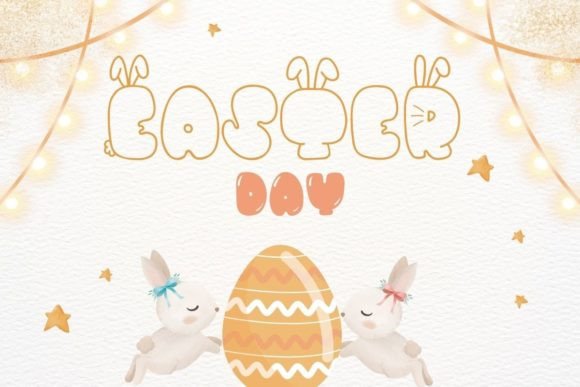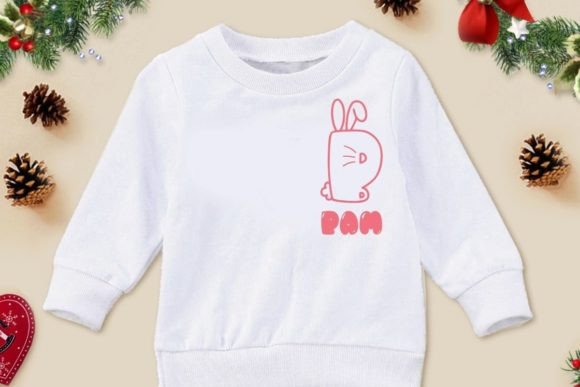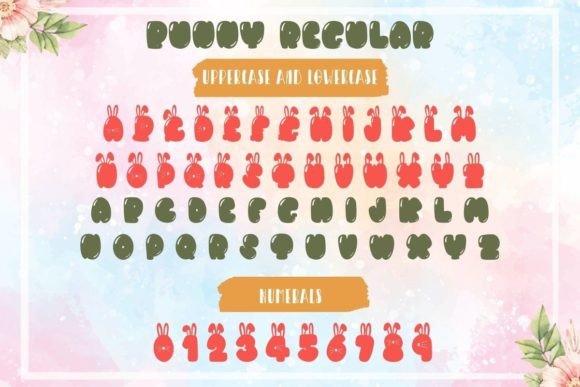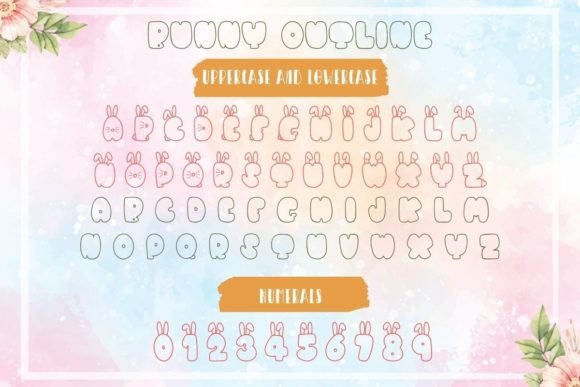
Get Ready to Hop into Creativity with Bunny Font
Have you ever found yourself staring at a blank canvas, searching for the perfect font to bring your design to life? You know that moment when everything clicks, and your creative juices start flowing? That’s exactly what we’re here to talk about – a delightful font that’s sure to put a smile on your face and inspire your next project.
Meet the Bunny Font, a charming decorative font designed to add a touch of whimsy and fun to your designs. Whether you’re creating Easter-themed content or just want to add a playful twist to your projects, this font is perfect for the job. With its adorable style and versatility, the Bunny Font is a valuable asset for designers looking to elevate their work and connect with their audience on a more personal level.
Bunny Font Key Features
- Font Family: Bunny Font is a sans-serif font family designed specifically for digital use.
- Size: The font family includes a range of sizes, from 12 to 72 points, covering various typography needs.
- Resolution: Optimized for high-resolution displays, Bunny Font is suitable for use in both print and digital media.
- Unique Characteristics: Bunny Font features a playful, rounded design with distinctive letterforms, making it perfect for children’s books, educational materials, and advertising campaigns.
- Character Set: The font family includes a comprehensive character set, covering Latin, Cyrillic, and Greek alphabets, as well as a range of punctuation and symbol glyphs.
Bunny Font Review
Overall, I’m a bit torn about the Bunny Font. On one hand, it’s a cute and playful addition to any design project. ✨ The rounded edges and whimsical feel make it perfect for children’s books, nursery decor, and other projects that require a lighthearted touch. ✨ The font’s flexibility in terms of size and color also makes it a great choice for digital applications.
However, there are some limitations that prevent me from giving it a full thumbs up. ⚠️ The font’s readability can be an issue, especially at smaller sizes. The letters can become blurry and difficult to distinguish, which may not be ideal for body text or any project where clear communication is crucial. ⚠️ Additionally, the font’s design may not be suitable for all audiences, as it can come across as childish or immature.
Key Points:
- ✨ Cutesy and playful design makes it perfect for children’s projects
- ✨ Flexible in terms of size and color
- ⚠️ Readability can be an issue at smaller sizes
- ⚠️ Design may not be suitable for all audiences
While the Bunny Font has its charm, I think it’s best used in projects where its playful nature is a deliberate choice. It’s not a font I’d recommend for everyday use or projects where clear communication is paramount.
The Bunny Font is perfect for creating playful and whimsical designs, such as:
- Children’s party invitations
- Cartoon-style illustrations
- Whimsical greeting cards
Here are some tips to get the most out of the Bunny Font:
- Pair it with bold, bright colors to create a playful effect.
- Use it in combination with illustrations or graphics to add a whimsical touch